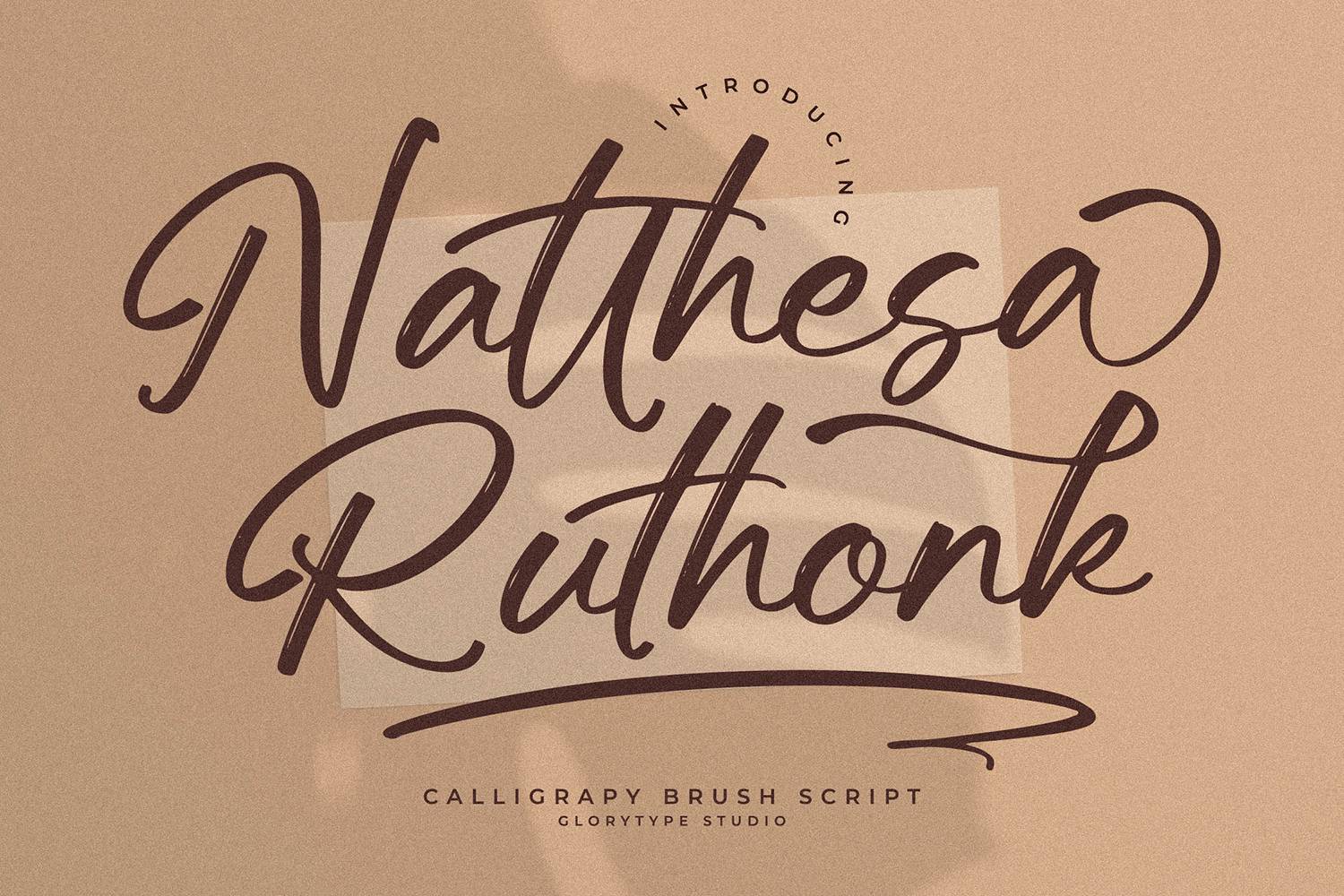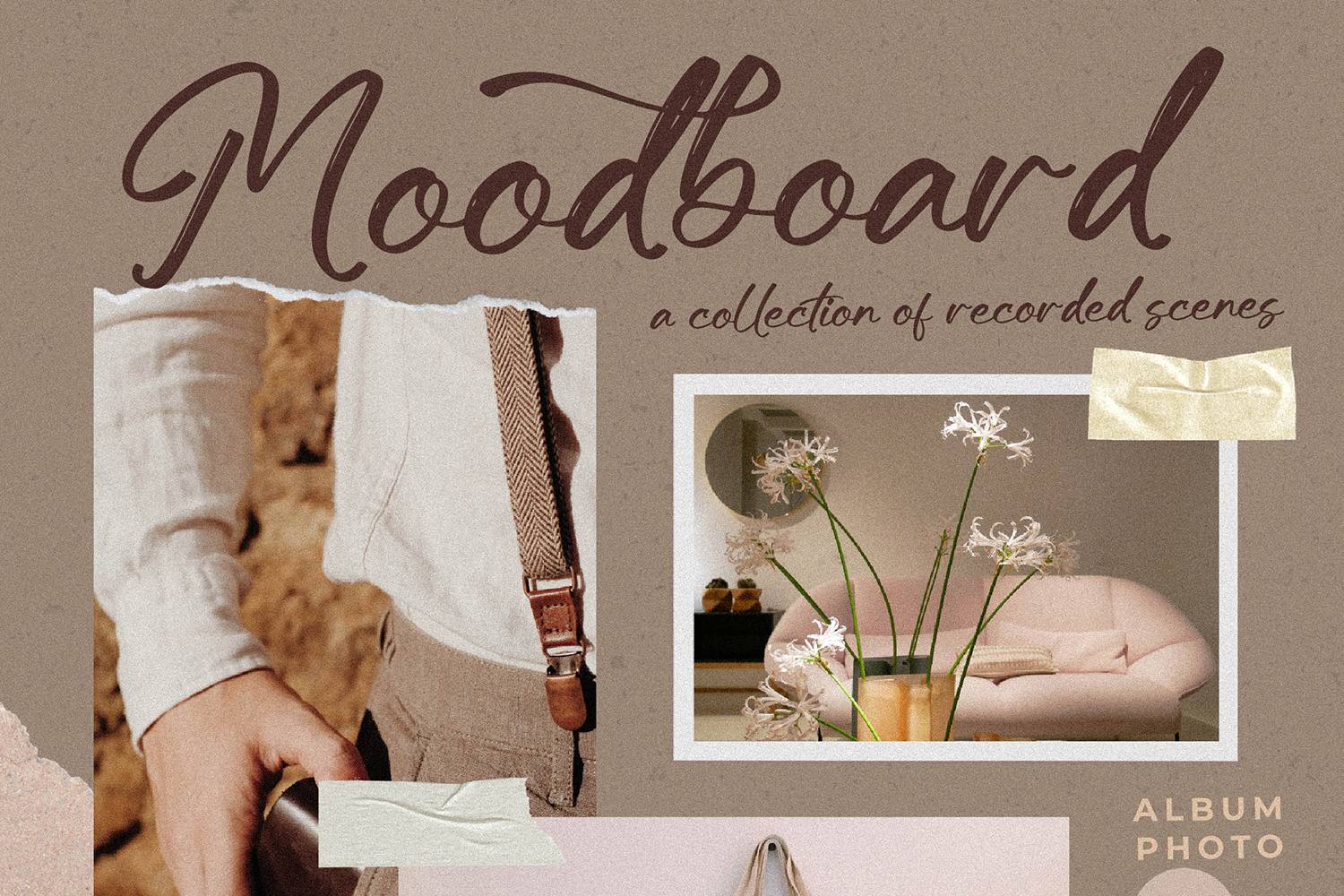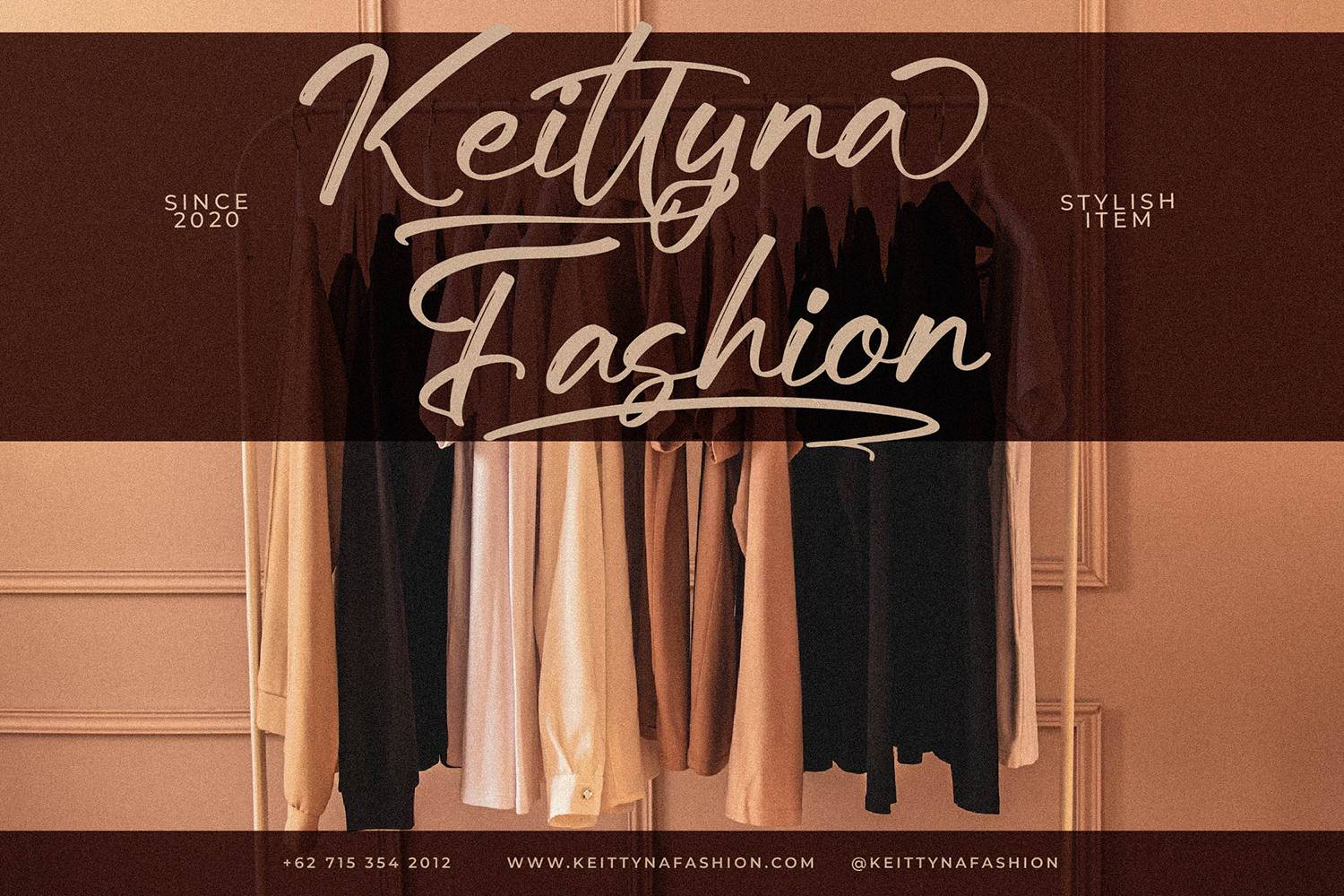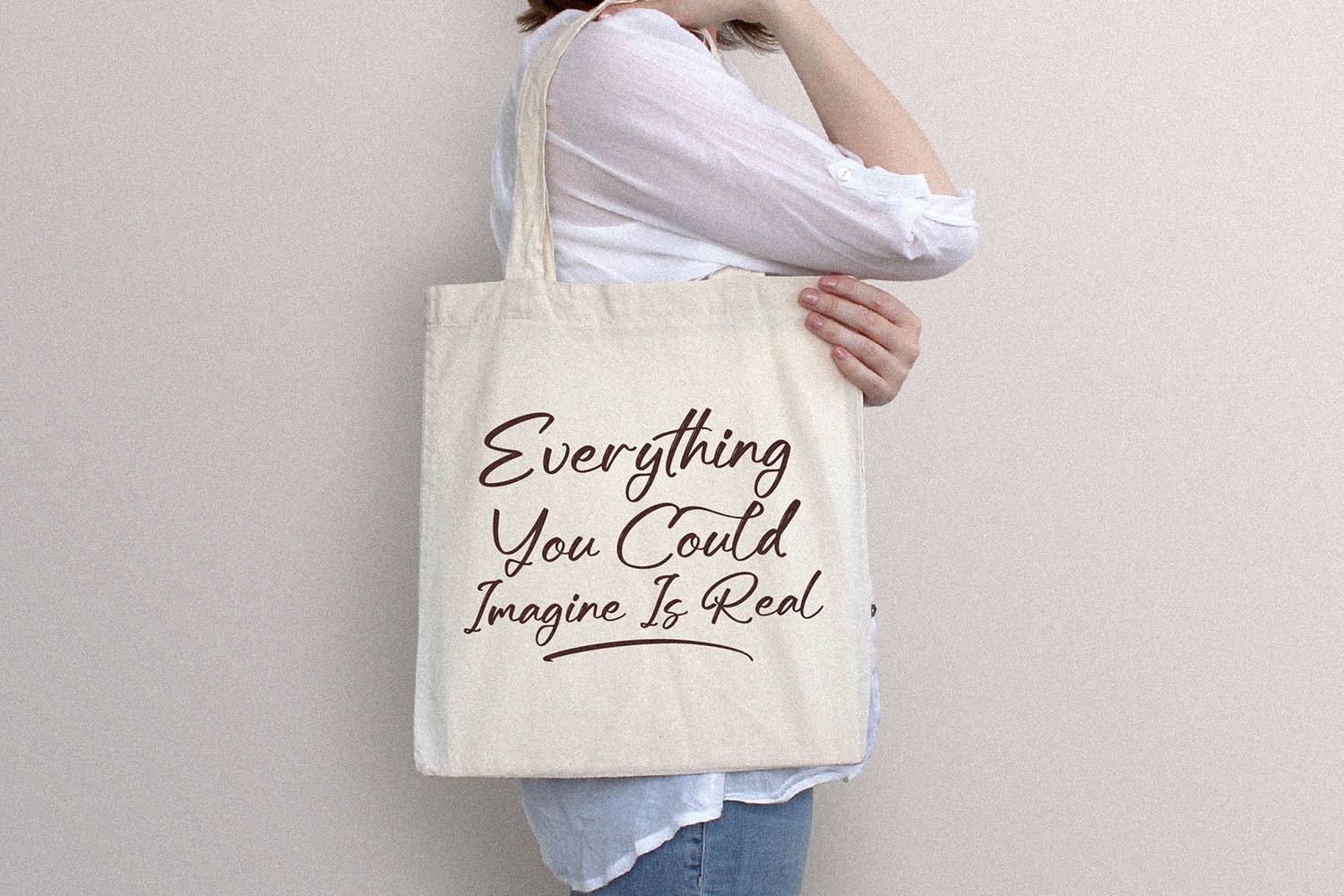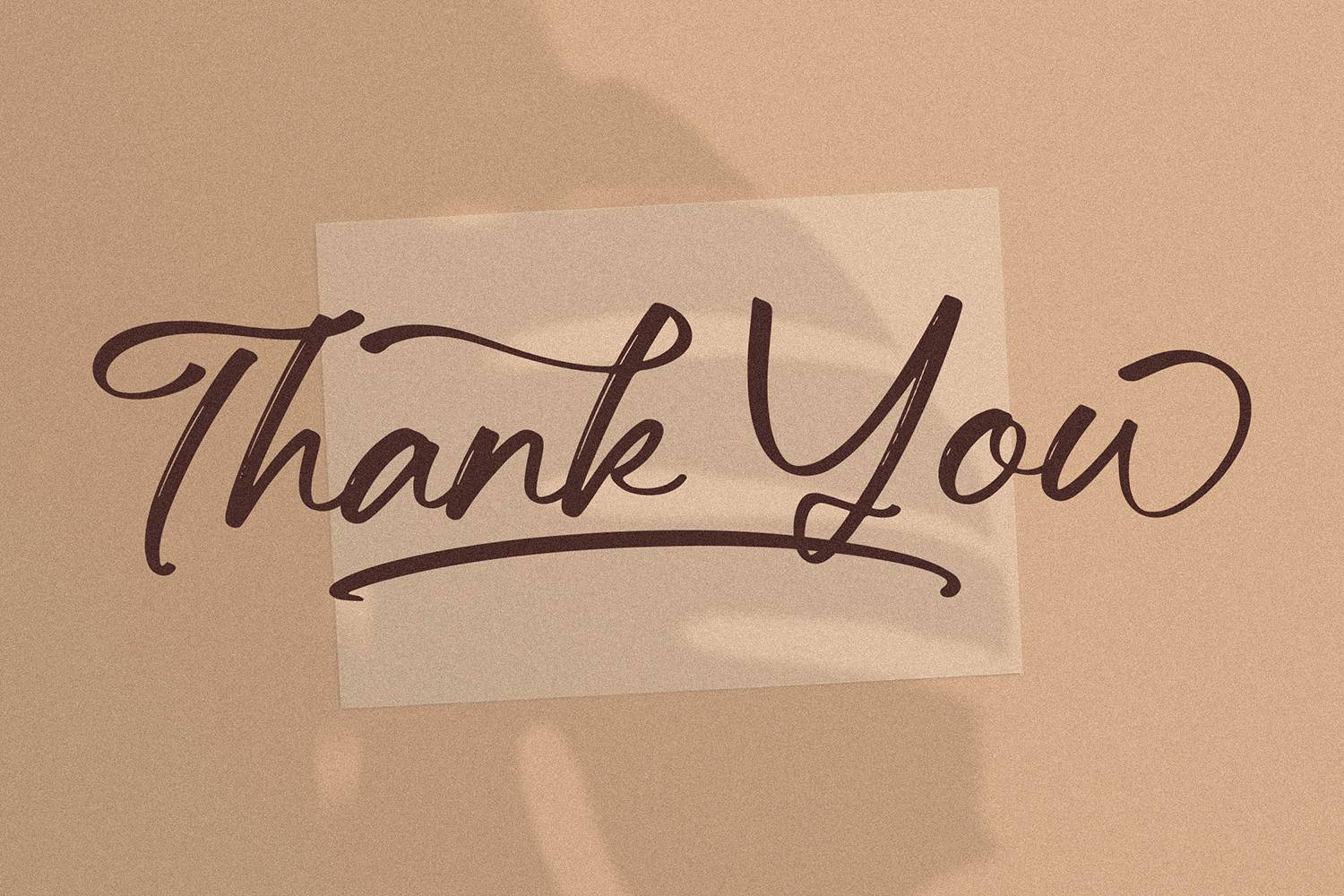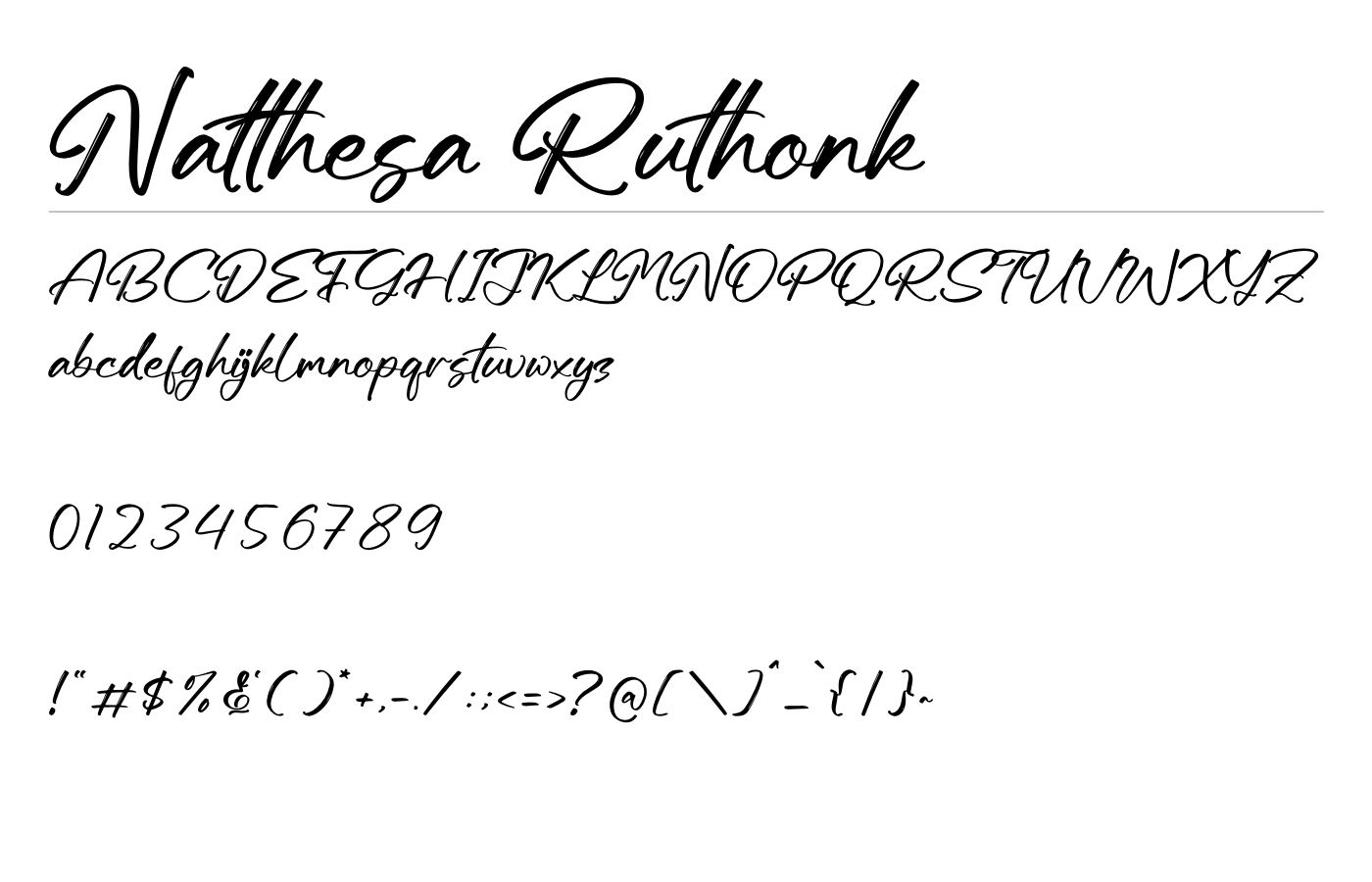
Natthesa Ruthonk is a graceful script font featuring fluid, handwritten letterforms with moderate contrast and a slightly casual yet elegant feel. Its light weight and smooth strokes make it ideal for adding a personal, stylish touch to invitations, branding, and headers where a refined but approachable look is desired. This font works beautifully in designs that seek to convey warmth and creativity while maintaining sophistication.
Natthesa Ruthonk Font
About Natthesa Ruthonk Font